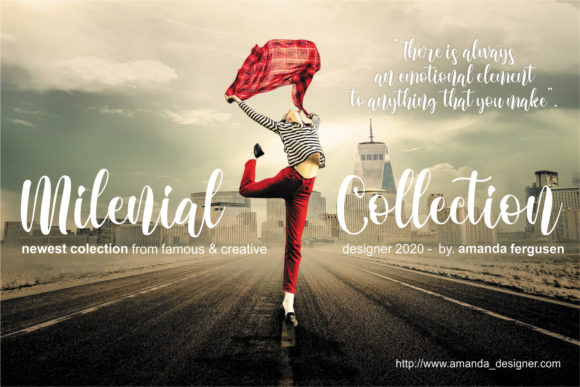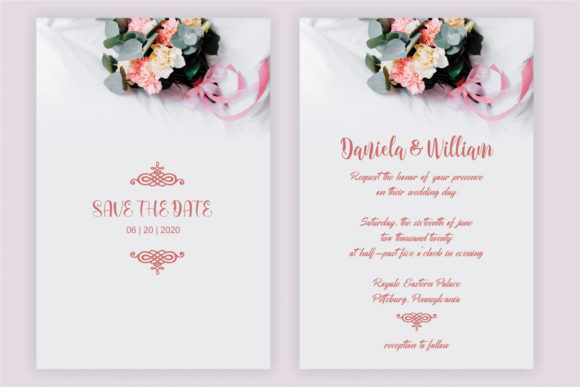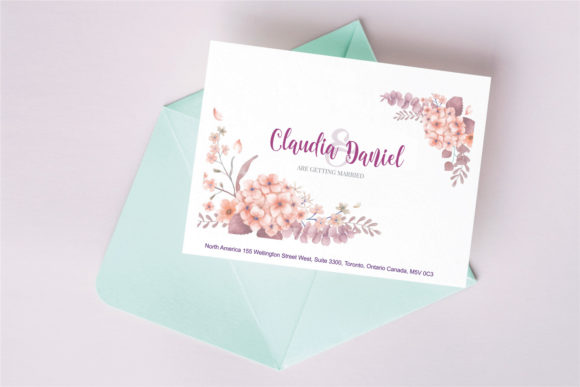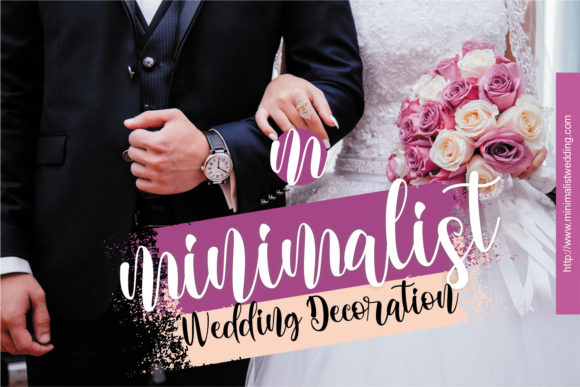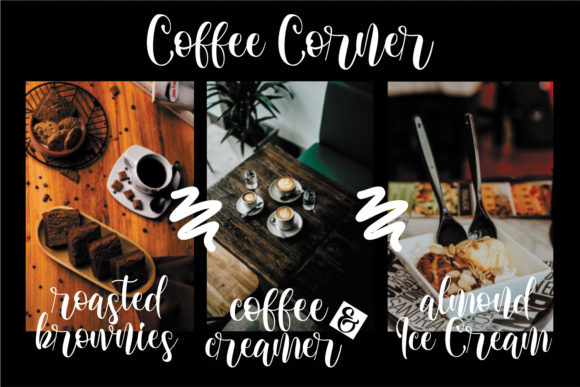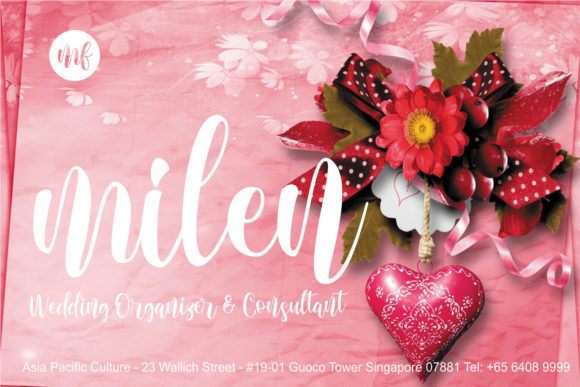
Introducing Enchantee Font: A Stylish Homage to Classic Calligraphy
Are you looking for a font that exudes elegance and charm? Look no further than Enchantee Font, a stunning script font that is sure to captivate your audience. With its varying baseline, smooth lines, gorgeous glyphs, and stunning alternates, Enchantee feels equally charming and elegant, making it perfect for a wide range of design projects.
A Stylish Tribute to Classic Calligraphy
Enchantee Font is a stylish homage to classic calligraphy, with a unique and sophisticated aesthetic that is sure to impress. The font features a beautiful, flowing script that is reminiscent of traditional calligraphy, but with a modern twist. The smooth lines and elegant curves of the font make it perfect for use in a variety of design projects, from wedding invitations and branding materials to packaging and advertising.
One of the standout features of Enchantee Font is that it is PUA (Private Use Area) encoded, which means that you can access all of the hearty glyphs and swashes with ease. This makes it simple to customize your text and add unique flourishes to your designs. Whether you’re a designer or a crafter, you’ll love the flexibility and creative freedom that Enchantee Font provides.
A Wealth of Special Features
Enchantee Font is more than just a beautiful script font – it also features a wealth of special features that make it truly exceptional. These include alternate glyphs and ligatures, which allow you to add even more variety and interest to your text. With Enchantee Font, you can create stunning designs that are sure to stand out from the crowd.
Enchantee Font is perfect for designers and crafters who are looking for a high-quality script font that can help them create stunning designs. Whether you’re working on a commercial project or a personal craft project, Enchantee Font is sure to impress. The font is versatile and easy to use, making it perfect for a wide range of applications, from digital design to handmade crafts.
Key Features of Enchantee Font
- Varying Baseline: Enchantee Font features a varying baseline that adds a touch of elegance and sophistication to your text.
- Smooth Lines: The font features smooth lines and elegant curves that make it perfect for use in a variety of design projects.
- Gorgeous Glyphs: Enchantee Font includes a range of gorgeous glyphs and swashes that can be accessed with ease thanks to PUA encoding.
- Stunning Alternates: The font features stunning alternates and ligatures that allow you to add even more variety and interest to your text.
- PUA Encoded: Enchantee Font is PUA encoded, making it easy to access all of the glyphs and swashes.
Tips for Using Enchantee Font
Here are a few tips for using Enchantee Font in your designs:
- Use it for headings: Enchantee Font is perfect for use in headings and titles, where its elegant and sophisticated aesthetic can really shine.
- Experiment with alternates: Don’t be afraid to experiment with the font’s alternates and ligatures to add more interest and variety to your text.
- Pair it with other fonts: Enchantee Font pairs well with a range of other fonts, so don’t be afraid to get creative and try out different combinations.
Enchantee Font is a stunning script font that is sure to captivate your audience. With its elegant and sophisticated aesthetic, PUA encoding, and range of special features, it’s perfect for designers and crafters who are looking for a high-quality font that can help them create stunning designs. Whether you’re working on a commercial project or a personal craft project, Enchantee Font is sure to impress.